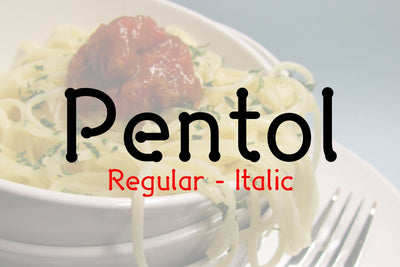
Pentol
Pentol is a geometric rounded sans-serif font; by giving a touch of a circle at the end as an affirmation of the character and to improve readability.
Its vaguely retro yet contemporary look along with good readability at different sizes and clean lines allows for a wide range of uses (logotypes, webdesign, collaterals).